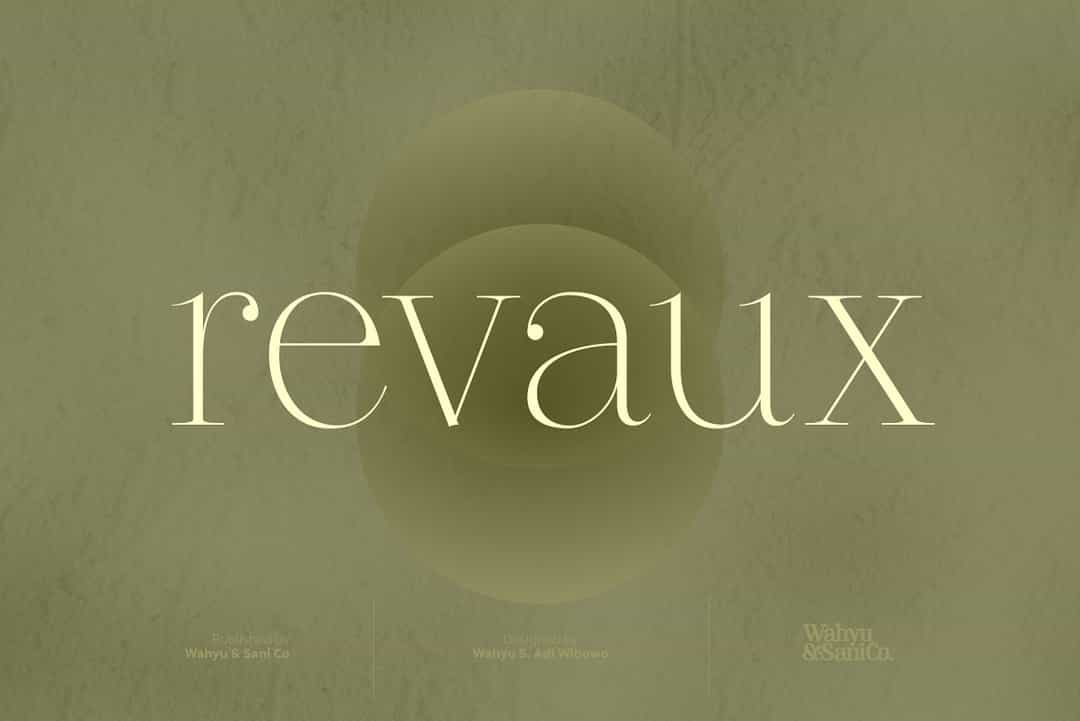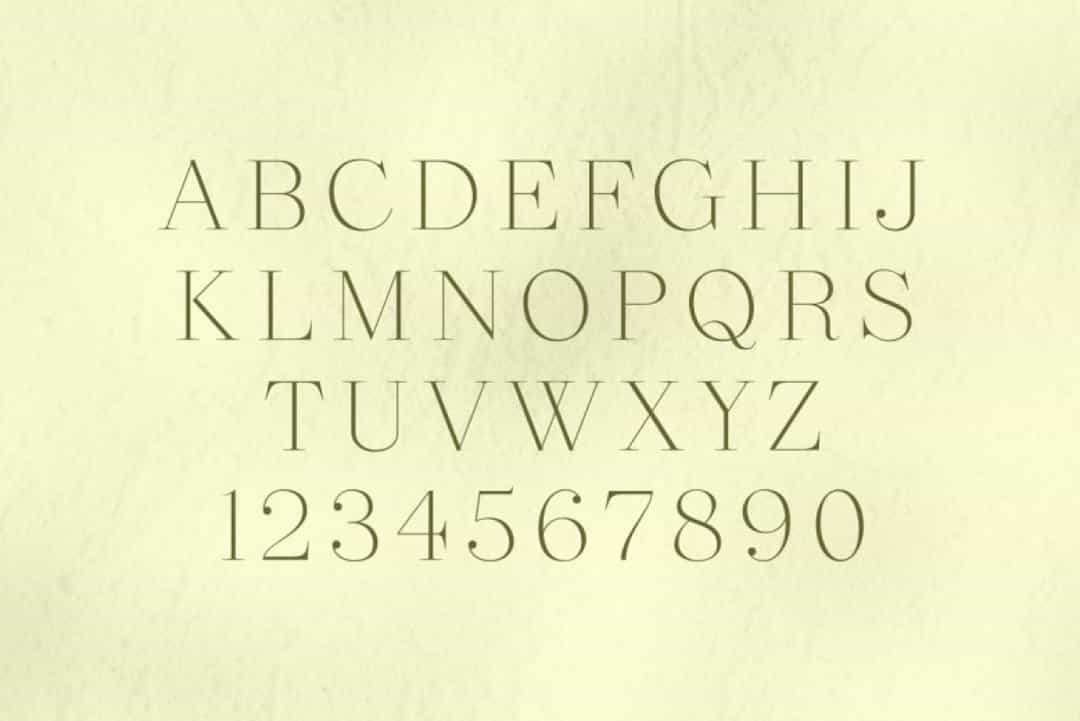
Revaux is a modern and stylish display serif font created with ball terminals. It contains over 304 glyphs – including alternates and Ligatures – supporting all 61 Latin languages, making it suitable for quotes Vlogger preview logotypes fashion web banners as well as musician song promotion or coffee shop promotion among many other applications.